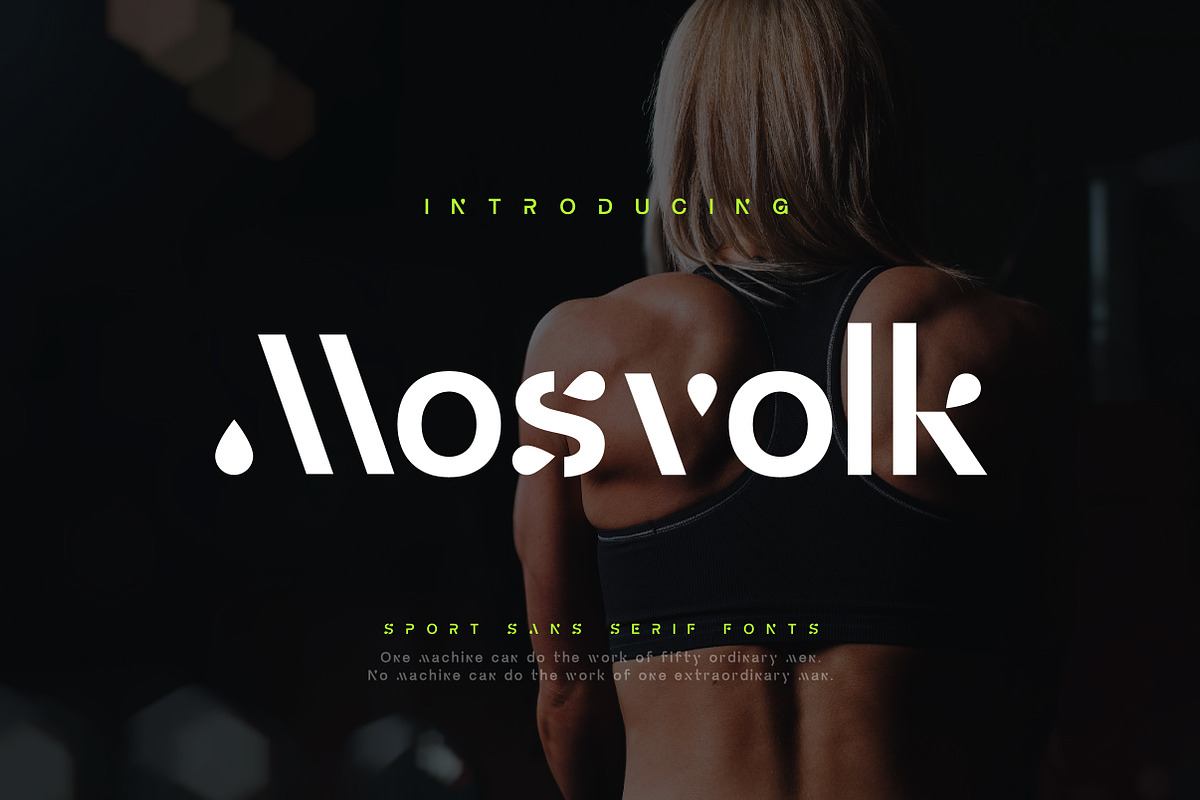
Mosvolk Free Download
Enhance your designs with Mosvolk Font Free Download, a bold and distinctive typeface perfect for creative projects. You need to purchase this font for commercial use. However, Mosvolk Font Free Download is available for personal or testing purposes, allowing you to experiment freely. Its strong lines and striking presence make it ideal for branding, headlines, posters, apparel design, and digital graphics. Designers appreciate Mosvolk Font for its modern versatility and impactful style, effortlessly capturing audience attention. Incorporate Mosvolk Font Free Download into your next project today and add a dynamic, professional edge that leaves a memorable impression.